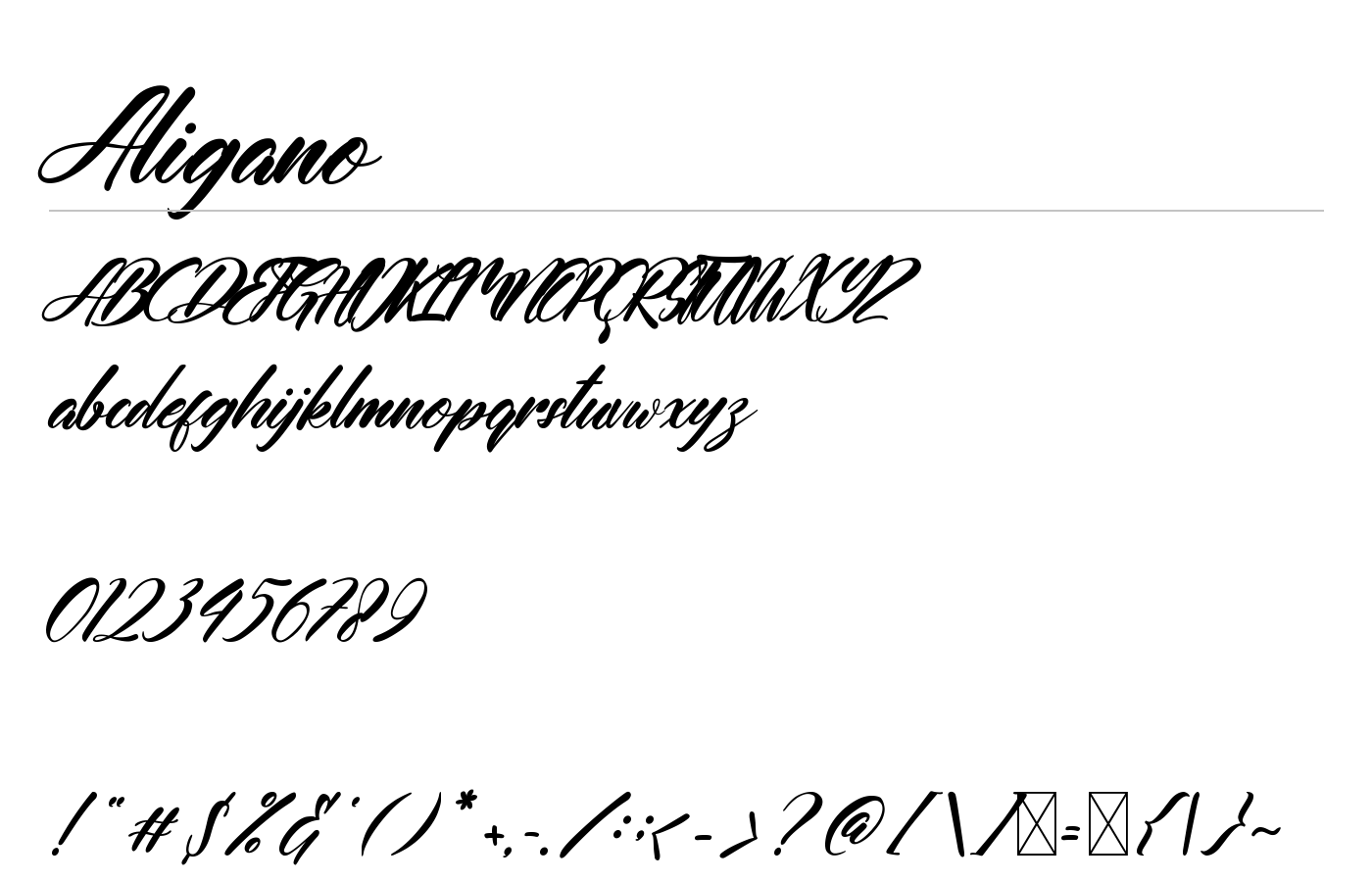
Aligano is an elegant script font characterized by its flowing, cursive letterforms and smooth, calligraphic strokes. With a balanced weight and a slightly elongated width, it offers a graceful and refined look ideal for sophisticated branding, invitations, and logos that seek a touch of classic charm and personal flair. Its readable yet decorative style makes it perfect for designs where stylish handwriting is desired to convey elegance and warmth.
Aligano Font
About Aligano Font
| Font family | Aligano Font |
| Designer | Ikrar Bey Khubaib |